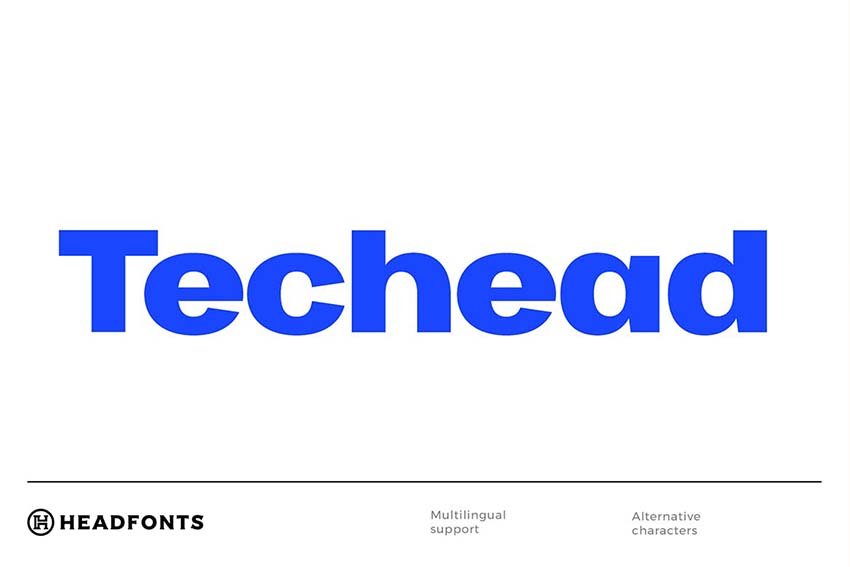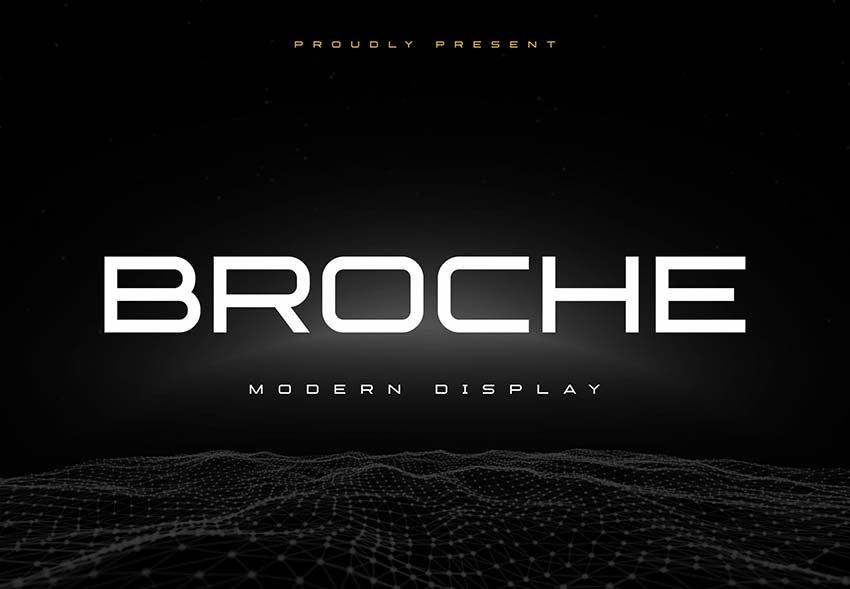
15 Fonts Similar to Eurostile Envato Tuts+
Fonts Similar To Eurostile. Akira kobayashi and aldo novarese linotype 2008. It's flexible enough to adapt to.
Web anybody is a big family that combines an affinity for eurostile plus a heavy dose of 90s inspiration. Akira kobayashi and aldo novarese linotype 2008. It's flexible enough to adapt to. Web urw eurostile urw type foundry 25 styles from $29.00. Eurostile candy is a fun spinoff from akira kobayashi's.
It's flexible enough to adapt to. Web urw eurostile urw type foundry 25 styles from $29.00. Web anybody is a big family that combines an affinity for eurostile plus a heavy dose of 90s inspiration. Eurostile candy is a fun spinoff from akira kobayashi's. Akira kobayashi and aldo novarese linotype 2008.